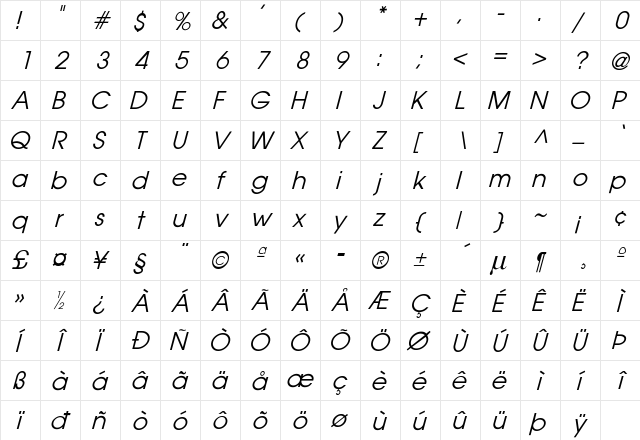
Stockton Italic Font Preview
Stockton Italic
Design Context for Stockton Typeface
Stockton offers clean, dependable letterforms without strong stylistic allegiance, making it a practical choice for designers who need flexibility. Its italic angle brings a sense of urgency and motion to the letterforms.
Pro Tip: Use Stockton for emphasis, pull quotes, and subheadings where its slanted energy can add rhythm to the layout.